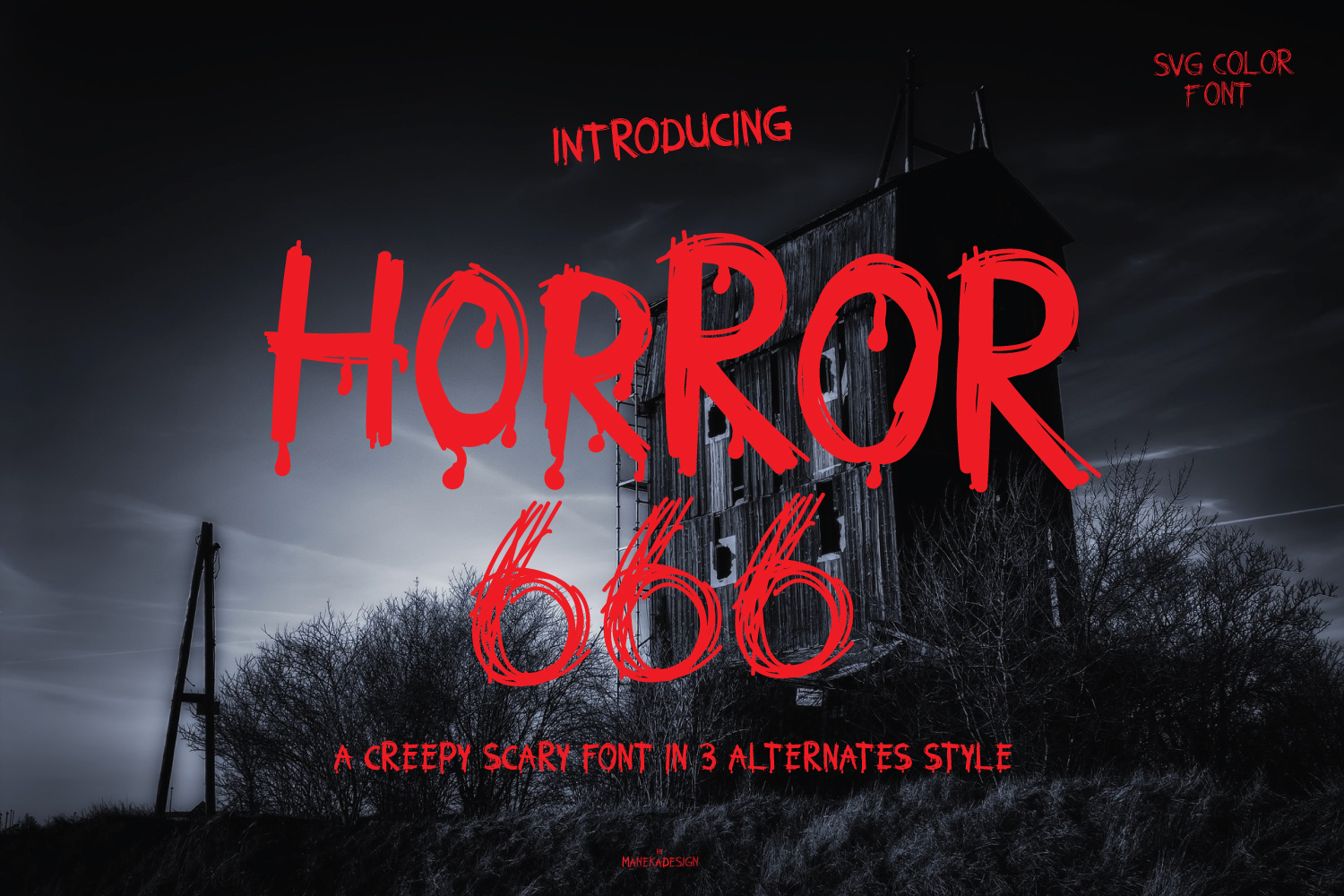
HORROR 666 SVG Color Font
Horror 666 is a cool, creepy and dramatic display font. It is PUA encoded which means you can access all of the glyphs and swashes with ease!